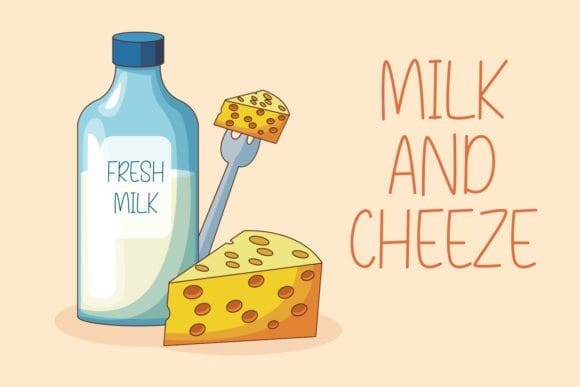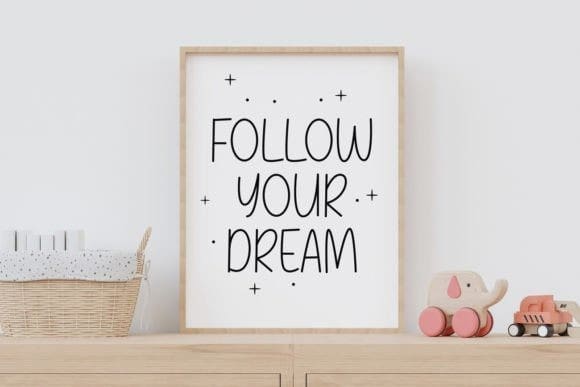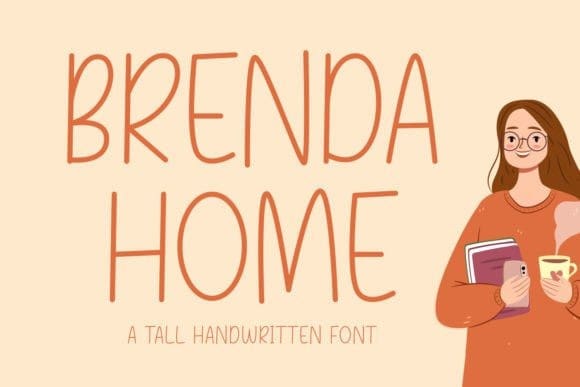
Brenda Home Font
Brenda Home Font looks tall, modern, and joyful. This font is suitable for logos, packaging designs, posters, business cards, covers, broadcasts, quotes, books, etc. Take your business go to the next level with Brendahome.